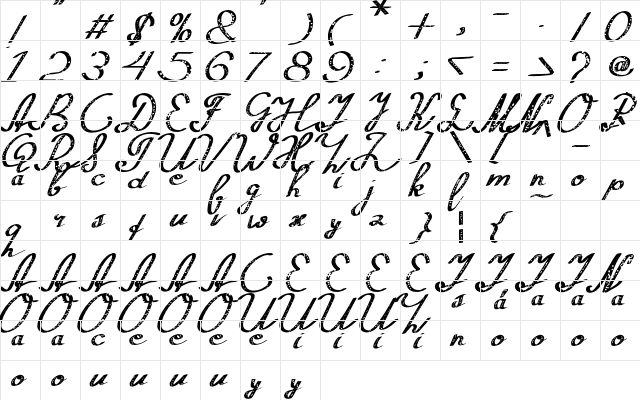
Silvestero Regular Font Preview
Silvestero Regular
Silvestero Regular Font Details
Design Context for Silvestero Typeface
Silvestero is a composed and adaptable typeface that performs quietly and consistently across a wide range of design contexts.